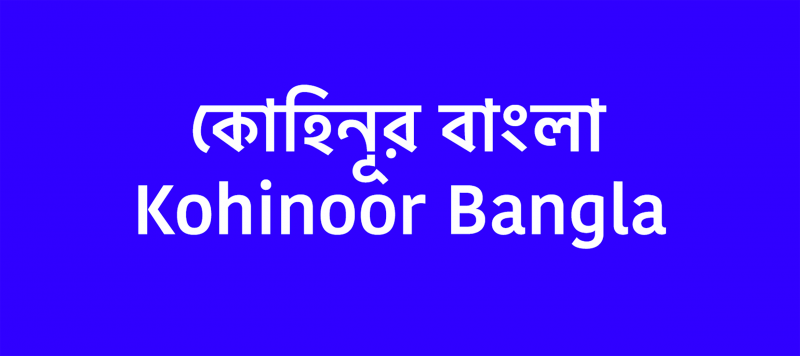
Kohinoor Bangla is an all-around Bengali for software engineers and branding specialists. Its letterforms feature open counterforms, and strokes with low contrast. Thanks to its clear appearance, the fonts are easy to work with, and their results are inviting to read. Kohinoor Bangla is an ideal choice for use in text-heavy multilingual projects, including app design, corporate design, editorial design, signage systems, and television subtitling. Each font contains 730 glyphs, offering a character set fully supporting all necessary Bengali-script conjuncts and ligatures. Kohinoor Bangla is part of our larger Kohinoor family, containing fonts for the Arabic, Devanagari, Gujarati, Gurmukhi, Latin and Tamil scripts. Taken together, they support hundreds of languages that are spoken natively by billions of people around the world. Before ITF released Kohinoor Bangla as a retail product, its fonts were embedded inside of several popular products from Apple, Sony, and other manufacturers.
| Family Name | Kohinoor Bangla |
|---|---|
| Designer(s) | Satya Rajpurohit |
| Release Date | August 31, 2018 |
| Available Style | Light, Regular, Medium, Semibold, Bold |
| Classification | Sans |